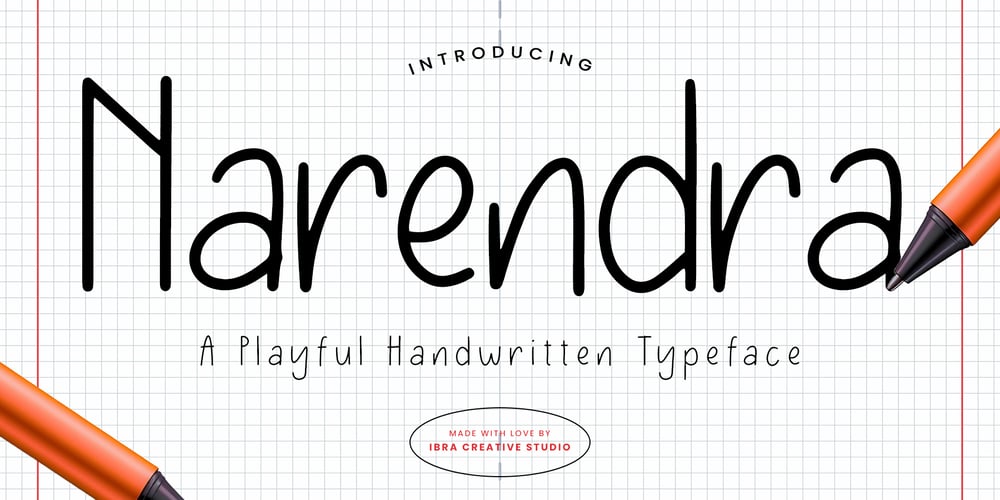
Narendra Font Family was designed by Roisatul Azizah and published by IbraCreative. Narendra contains 1 styles and family package options. Narendra – A Playful Handwritten TypefaceNarendra, a playful handwritten typeface, invites creativity and spontaneity into the realm of typography. Its charmingly irregular strokes and whimsical letterforms exude a sense of lightheartedness, making it a delightful choice for designs that seek to convey a playful and friendly vibe. Each character dances with a unique rhythm, as if capturing the essence of doodles and joyful scribbles. Narendra’s handwritten aesthetic adds a personal touch to any project, infusing a sense of warmth and approachability. Whether used for invitations, greeting cards, or playful branding, this typeface breathes life into words, turning them into animated expressions that reflect the cheerful spirit of handcrafted design.Narendra is perfect for branding projects, logo, wedding designs, social media posts, advertisements, product packaging, product designs, label, photography, watermark, invitation, stationery, game, fashion and any projects.Fonts include multilingual support for; Afrikaans, Albanian, Czech, Danish, Dutch, English, Estonian, Finnish, French, German, Hungarian, Italian, Latvian, Lithuanian, Norwegian, Polish, Portuguese, Slovak, Slovenian, Spanish, Swedish.